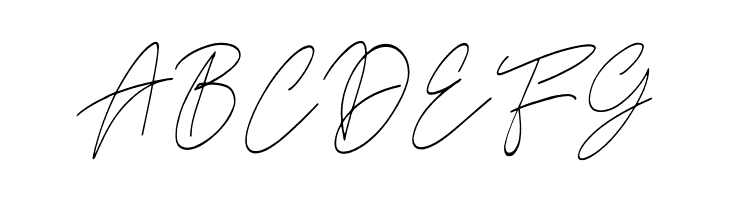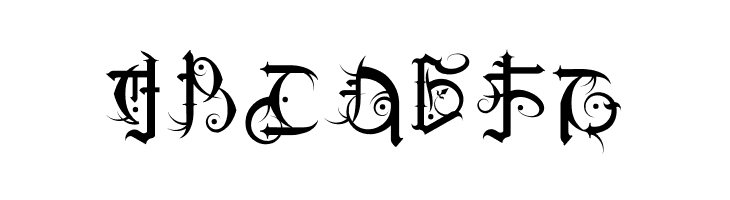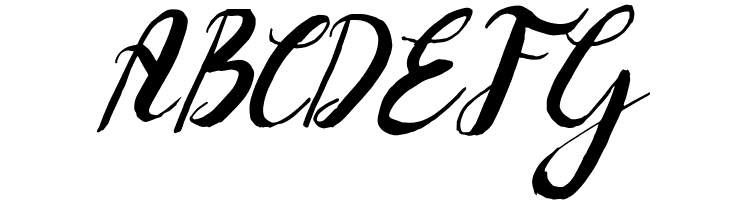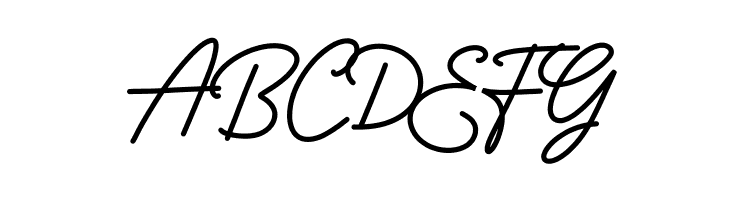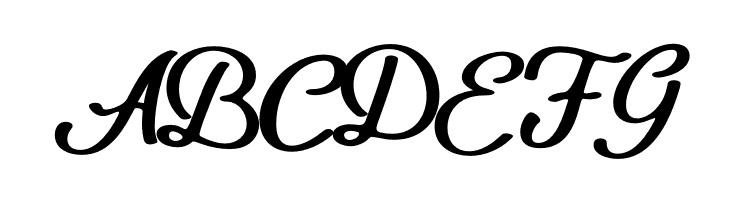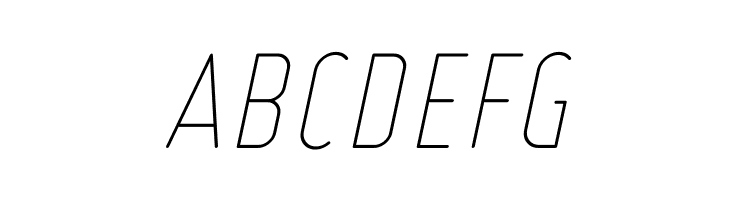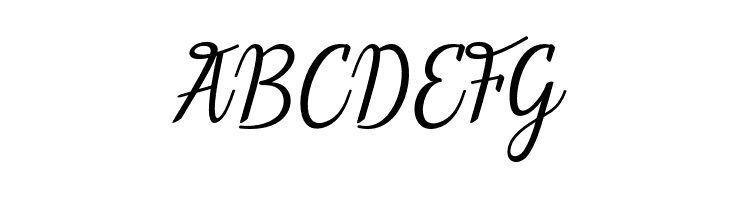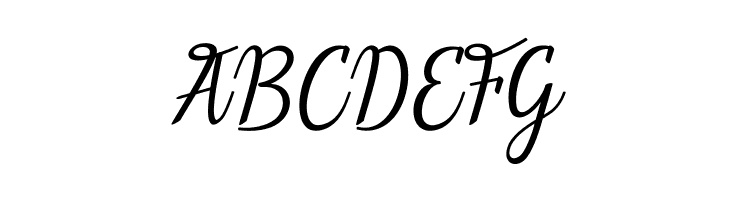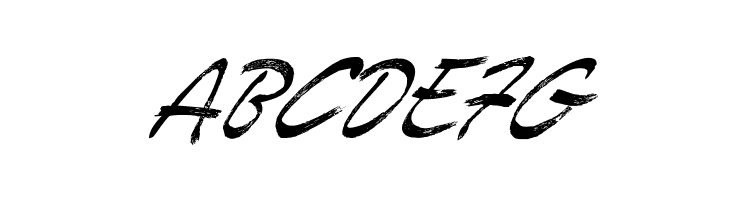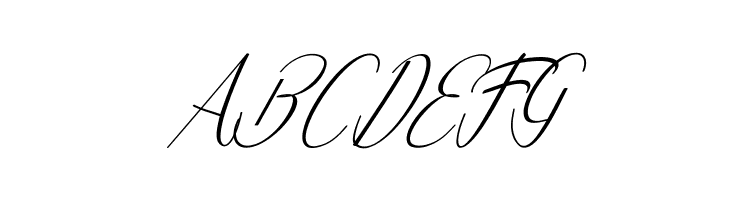
A font inspired by ancient Greek inscriptions with angular, geometric letterforms.
An elegant script font with flowing, connected characters and ornate flourishes.
A classic, elegant handwritten script with flowing, connected letterforms.
An elegant script font with flowing, cursive letters and graceful swashes.
A graceful script font with fluid, handwritten-style characters.
A dynamic and fluid script font with elegant, flowing lines and cursive letterforms.
An ornate Gothic font with intricate details and decorative flourishes.
A dynamic and flowing script font with elegant, cursive letterforms.
An elegant, cursive handwritten font with flowing, interconnected strokes.
A bold, flowing script font with elegant curves and loops.
A sleek, modern, and slightly condensed italic font with low contrast.
A flowing, cursive script font with elegant, connected characters.
A classic and elegant script font with flowing, connected letterforms.
A graceful script font with smooth, connected strokes and a handwritten appearance.
An elegant, flowing script font with delicate, calligraphic lines.
A graceful script font with flowing, connected strokes and elegant swashes.
An elegant, flowing script font with high contrast and graceful curves.
A dynamic brush-style font with fluid, expressive strokes.
A playful and elegant script font with fluid, cursive letterforms and decorative swashes.
A graceful script font with flowing, interconnected letters and a cursive style.
A decorative script font with elegant, flowing strokes and intricate flourishes.
An elegant, flowing script font with a handwritten appearance.
A flowing cursive font with elegant, connected letters and a handwritten style.
A thin, elegant script font with flowing lines and a sophisticated style.
A dynamic and flowing script font with elegant curves and smooth connections.
A cursive, handwritten-style font with elegant, flowing characters.
A sleek, modern, and italicized font with a light weight and elegant style.
( Nick Cunha - www.alookingglass.com )
A playful, hand-drawn font with a sketch-like, artistic style.
( Novian Fahrurriza - www.creativefabrica.com/designer/vianina/ )
An elegant, flowing script font with bold, cursive letterforms and decorative flourishes.
Download 813 Downloads@WebFont -
( Ojo Ngintype - www.creativefabrica.com/designer/jangan-ngintype/ )
An elegant script font with flowing, calligraphic style.
( OldStudioo - Muhammad Ilham - www.fontdraft.com )
An elegant script font with flowing cursive letters and intricate swashes.
( Out of Step Font Company - Dan Steinbok - outofstepfontco.com )
A geometric, angular font with a futuristic and precise design.
A modern, light, italic sans-serif font with clean lines and low contrast.
A lively, cursive font with a hand-drawn calligraphic style.
A playful, modern font with zigzag and wave elements, perfect for creative designs.